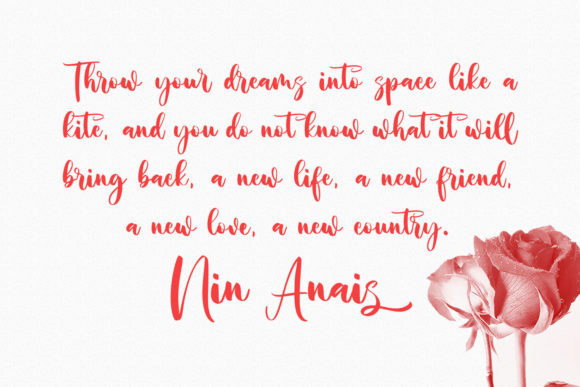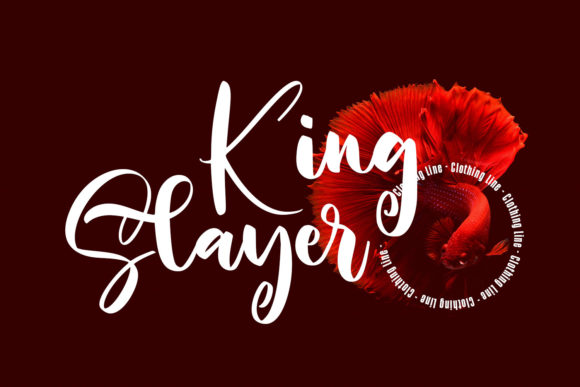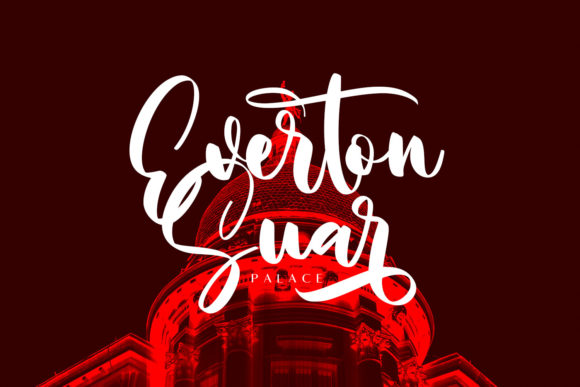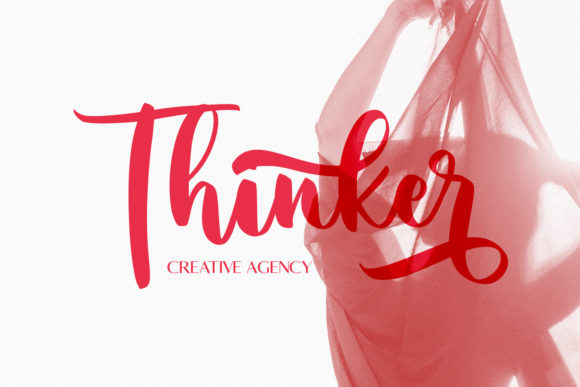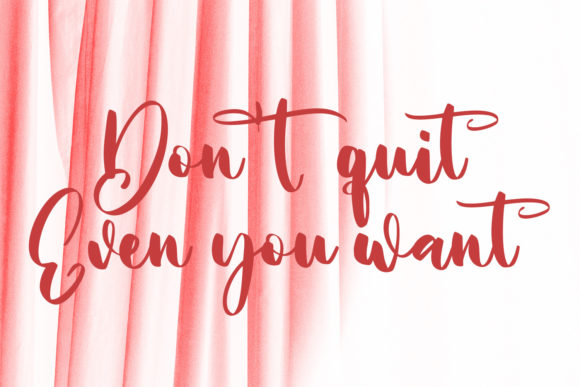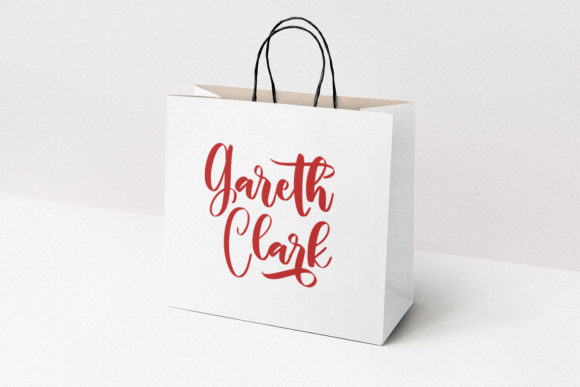
Garethons Script Font: Elevate Your Designs with Elegance and Sophistication
In the world of typography, script fonts hold a special place for their ability to add a touch of elegance, sophistication, and personality to any design. Among these, Garethons Script Font stands out as a stylish and incredibly elegant script font that can transform your designs, making them more captivating and refined. Whether you’re working on wedding invitations, thank you cards, quotes, greeting cards, logos, business cards, or any other project that requires a handwritten touch, Garethons Script is an excellent choice.
What Makes Garethons Script Font Special?
Garethons Script Font is designed to bring a sense of luxury and charm to your designs. Its elegant strokes and beautiful ligatures make it perfect for projects that demand a high level of sophistication. The font’s versatility allows it to be used in various contexts, from formal events like weddings and galas to more casual applications such as branding and advertising.
Key Features of Garethons Script Font
- Elegant and Sophisticated: Garethons Script boasts a refined aesthetic that adds an air of sophistication to any design.
- Versatile: Suitable for a wide range of projects, including wedding invitations, greeting cards, logos, and more.
- Handwritten Touch: Offers a personal and intimate feel, making your designs stand out.
- Easy to Read: Despite its script nature, Garethons Script is clear and legible, making it functional as well as beautiful.
Uses of Garethons Script Font
The applications of Garethons Script Font are vast and varied. Here are some of the most popular uses:
Wedding and Event Stationery
Wedding invitations, save the dates, and thank you cards are essential elements of wedding planning. Garethons Script Font can add a touch of elegance and romance to these documents, setting the tone for your special day.
Branding and Logos
For businesses looking to establish a brand identity that exudes elegance and sophistication, Garethons Script can be a valuable asset. It’s perfect for logos, business cards, and marketing materials.
Digital and Print Media
From quotes and greeting cards to blog posts and social media graphics, Garethons Script can enhance the visual appeal of your content, making it more engaging to your audience.
Tips for Using Garethons Script Font
To maximize the impact of Garethons Script Font in your designs, consider the following tips:
- Pair with Complementary Fonts: Use Garethons Script as a headline font and pair it with a simpler font for body text to create contrast and visual interest.
- Adjust Letter Spacing: For better readability, adjust the letter spacing according to the context in which you’re using the font.
- Experiment with Colors: While black is classic, experimenting with colors can add a unique touch to your designs.
Garethons Script Font is a versatile and elegant script font that can elevate your designs to new heights. Its sophisticated look and ease of use make it a go-to choice for designers and crafters looking to add a personal and luxurious touch to their projects. Whether you’re designing for weddings, branding, or personal projects, Garethons Script is sure to impress.
So, why settle for ordinary when you can make your designs extraordinary with Garethons Script Font? Explore its potential today and discover how it can transform your creative projects.